Cricut crafting has revolutionized the DIY world, allowing creators to bring intricate designs to life with precision and ease. One of the key elements that can make or break a design is the choice of font. Cursive fonts, with their elegant and flowing style, are particularly popular among crafters for projects like wedding invitations, personalized gifts, and home décor. In this article, we’ve curated a list of the 12 best cursive fonts perfect for Cricut projects, ensuring your creations stand out with sophistication and charm.
Designed by PutraCetol Studio, The Bad Signature is a sleek and modern cursive font that mimics a natural handwritten signature. It’s perfect for adding a personal touch to your projects, especially for branding or personalized gifts.
Another gem from PutraCetol Studio, Radiantly Signature offers a graceful and flowing script that’s ideal for elegant invitations and stationery. Its smooth curves and balanced letters make it a favorite among crafters.
Ramela is a classic cursive font that combines simplicity with elegance. Its clean lines and legible characters make it versatile for various projects, from home décor to custom apparel.
Nachelle brings a touch of vintage charm to your designs. With its delicate strokes and refined style, it’s perfect for projects that require a timeless and sophisticated look.
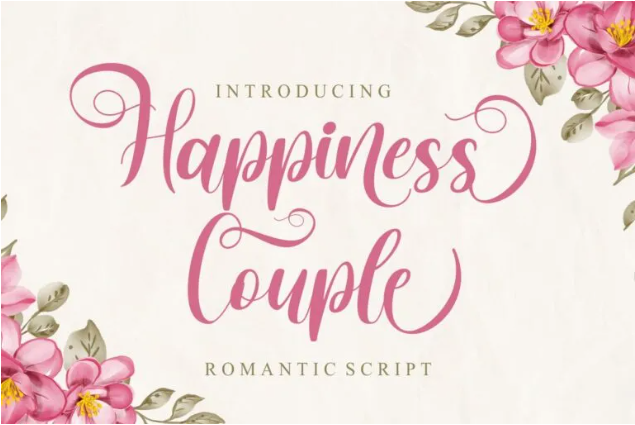
Happiness Couple offers a unique blend of modern and classic cursive styles. Its distinctive character shapes make it stand out, adding a creative flair to your crafting projects.
Authorfun is a playful and bold cursive font that adds a fun element to your designs. It’s great for children’s projects, party invitations, and any design that needs a lively touch.fontspace
Tashia is a bold vintage script that exudes elegance and sophistication. Its thick strokes and stylish swashes make it ideal for standout headings and statement pieces.Creative Fabrica+2fontspace+2
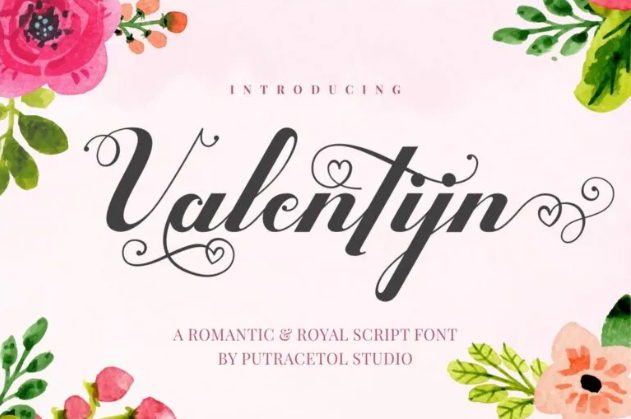
Valentijn is a romantic cursive font with intricate details. It’s perfect for wedding invitations, love letters, and any project that requires a touch of romance.
Micayla offers a smooth and flowing script that’s both modern and elegant. Its versatility makes it suitable for a wide range of projects, from branding to personalized gifts.
Rotters is a stylish cursive font with a contemporary feel. Its unique character shapes and smooth connections make it a great choice for modern designs.
Lovely is a charming cursive font that lives up to its name. Its delicate strokes and graceful curves add a sweet touch to any project, making it ideal for baby showers, greeting cards, and more.
Sweetie is a delightful cursive font that combines elegance with playfulness. Its rounded letters and smooth flow make it perfect for a variety of crafting projects.
Selecting the right cursive font can significantly enhance the aesthetic appeal of your Cricut projects. Whether you’re creating wedding invitations, personalized gifts, or home décor, the fonts listed above offer a range of styles to suit your needs. Explore these options and let your creativity shine!